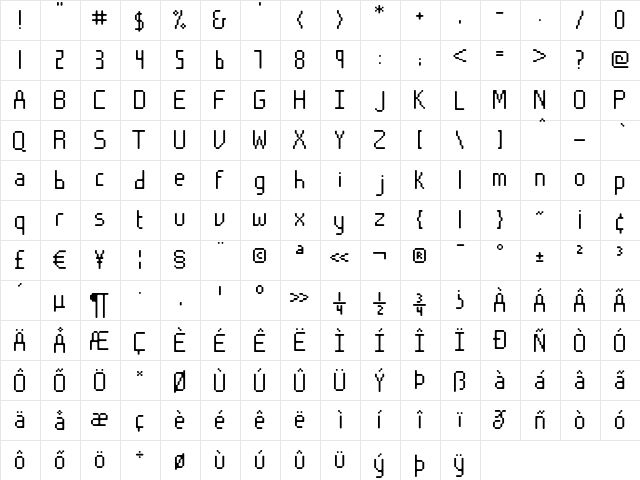
Motus Regular
Design Context for Motus Typeface
Motus is a composed and adaptable typeface that performs quietly and consistently across a wide range of design contexts.